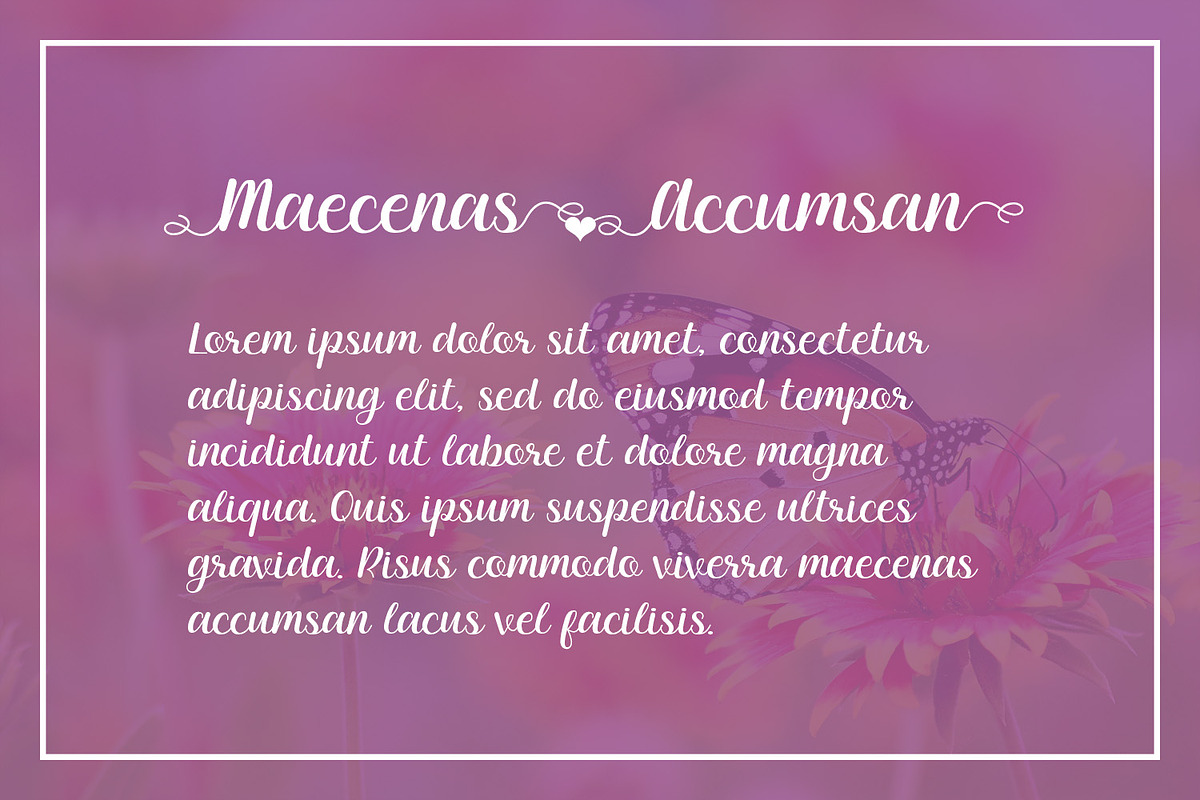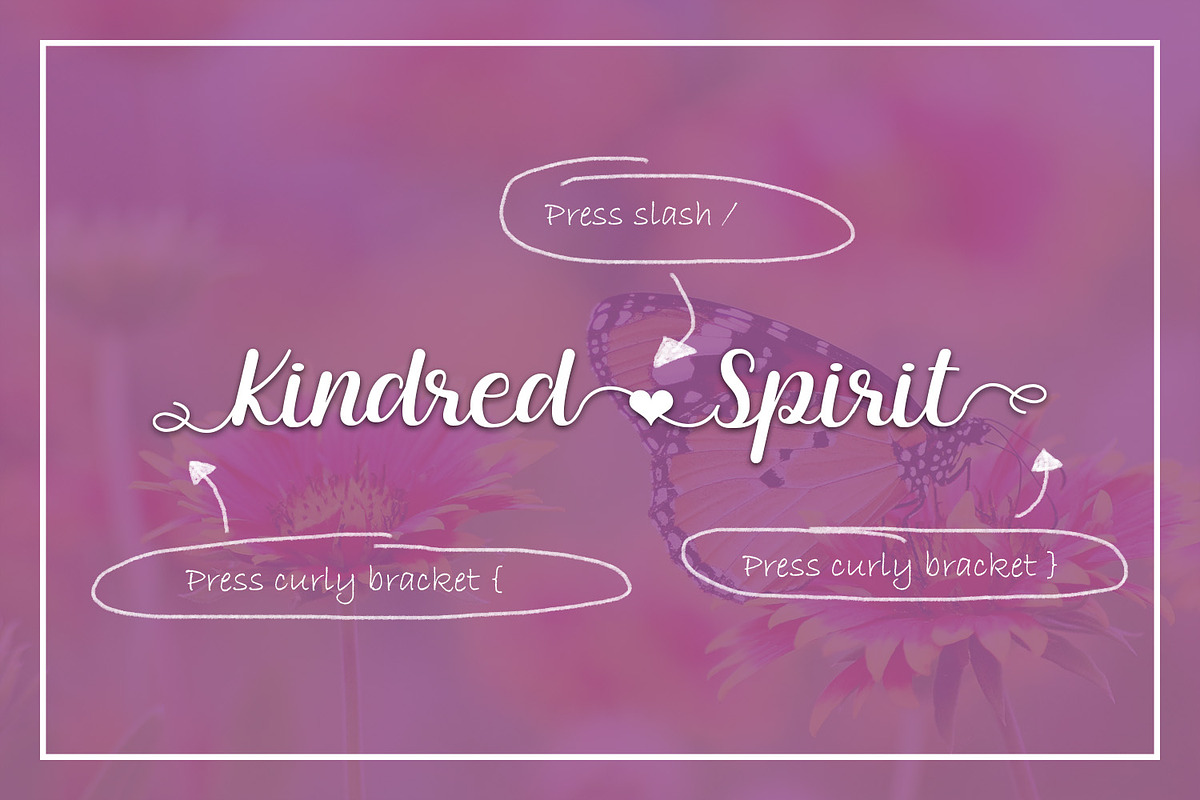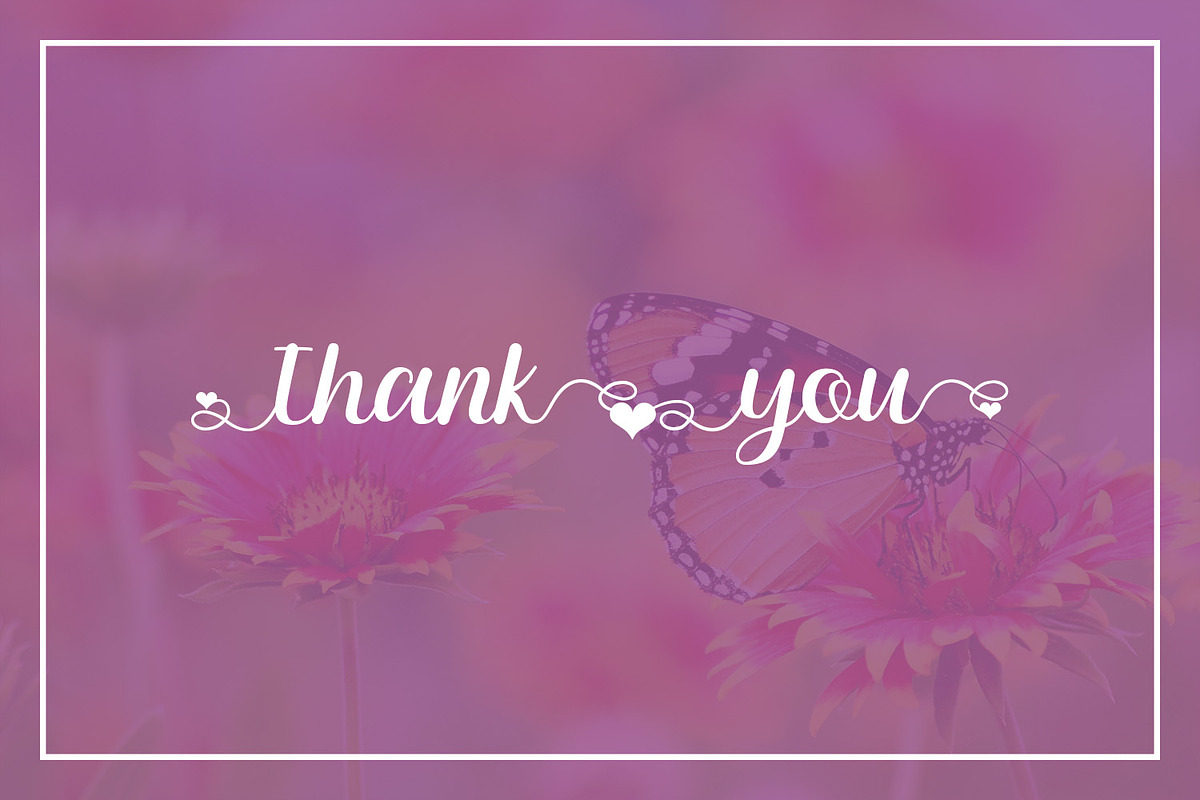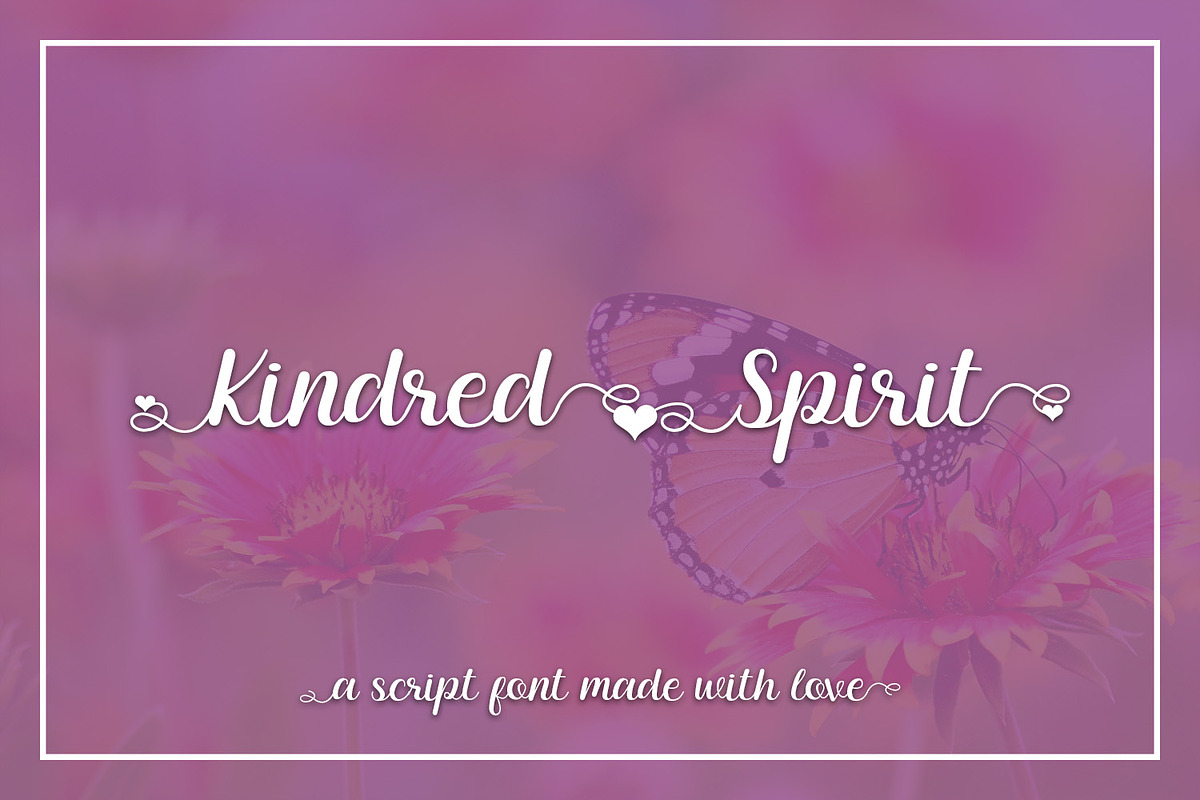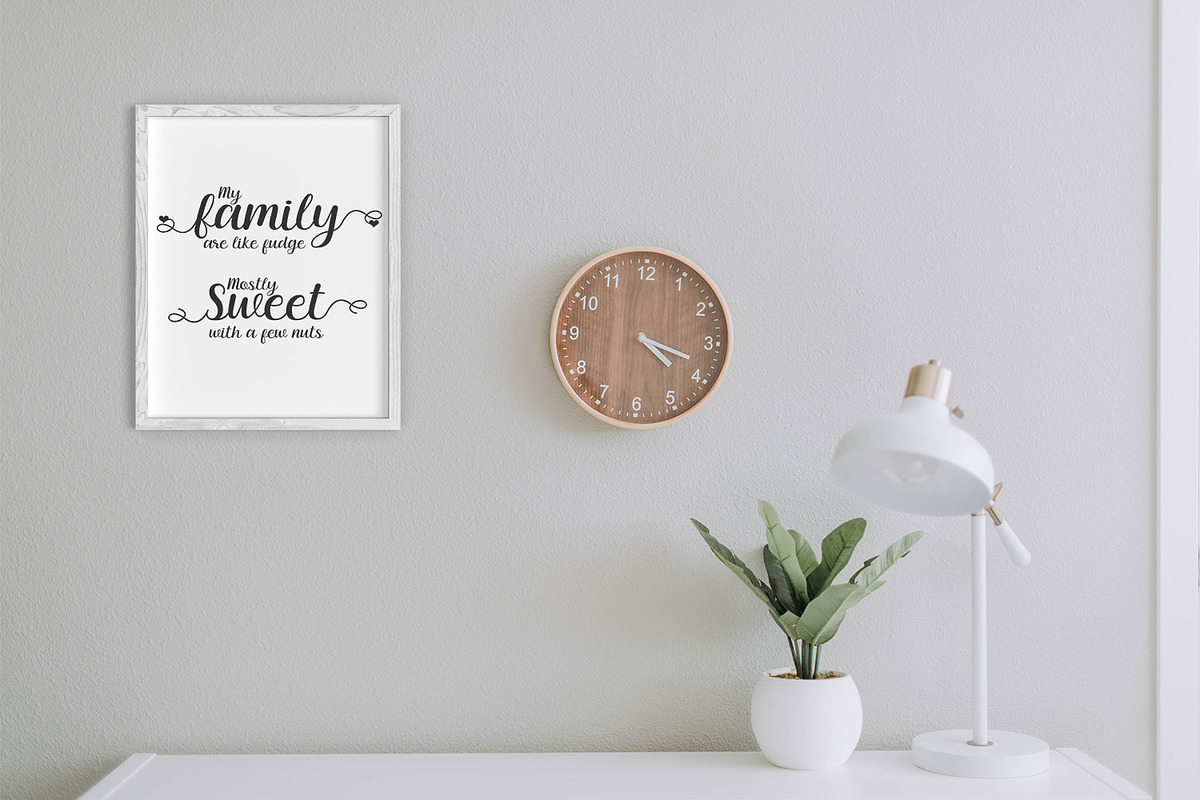
Kindred Spirit
Kindred Spirit is a smooth, handwritten font with heart swashes.
Add swashes to the beginning and end letters of a word, or add a swash in between words. As shown in the preview images, simply type the corresponding keys to add swashes wherever you like.